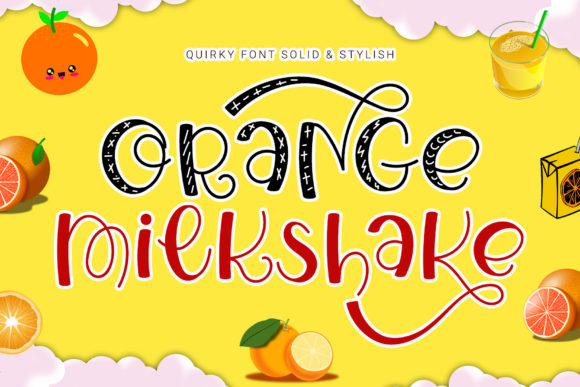
Journey into the realm of eye-catching and captivating typography with Orange Milkshake Font, a script masterpiece brought to you by Airotype. This font exudes boldness and sophistication, boasting chunky and extended characters that command attention. Orange Milkshake Font is a visual symphony, a fusion of strength and elegance that will elevate your creative projects to new heights.
Unleash your imagination and explore the endless possibilities of Orange Milkshake Font. Its versatility knows no bounds, making it the perfect choice for logos, branding, packaging design, and any project that demands a touch of individuality. This font is a chameleon of creativity, effortlessly adapting to various styles and themes, ensuring that your designs stand out from the crowd.
Immerse yourself in the world of Orange Milkshake Font and let its unique charm captivate your audience. Each letter is a work of art, meticulously crafted to convey emotions and messages with unparalleled impact. This font is not just a collection of characters; it's a symphony of visual expression that will leave an indelible mark on your designs.
Orange Milkshake Font is more than just a font; it's an experience. It's a journey into the realm of visual storytelling, where every word carries weight and every letter tells a tale. Embrace the power of Orange Milkshake Font and embark on a creative odyssey that will leave your audience spellbound.